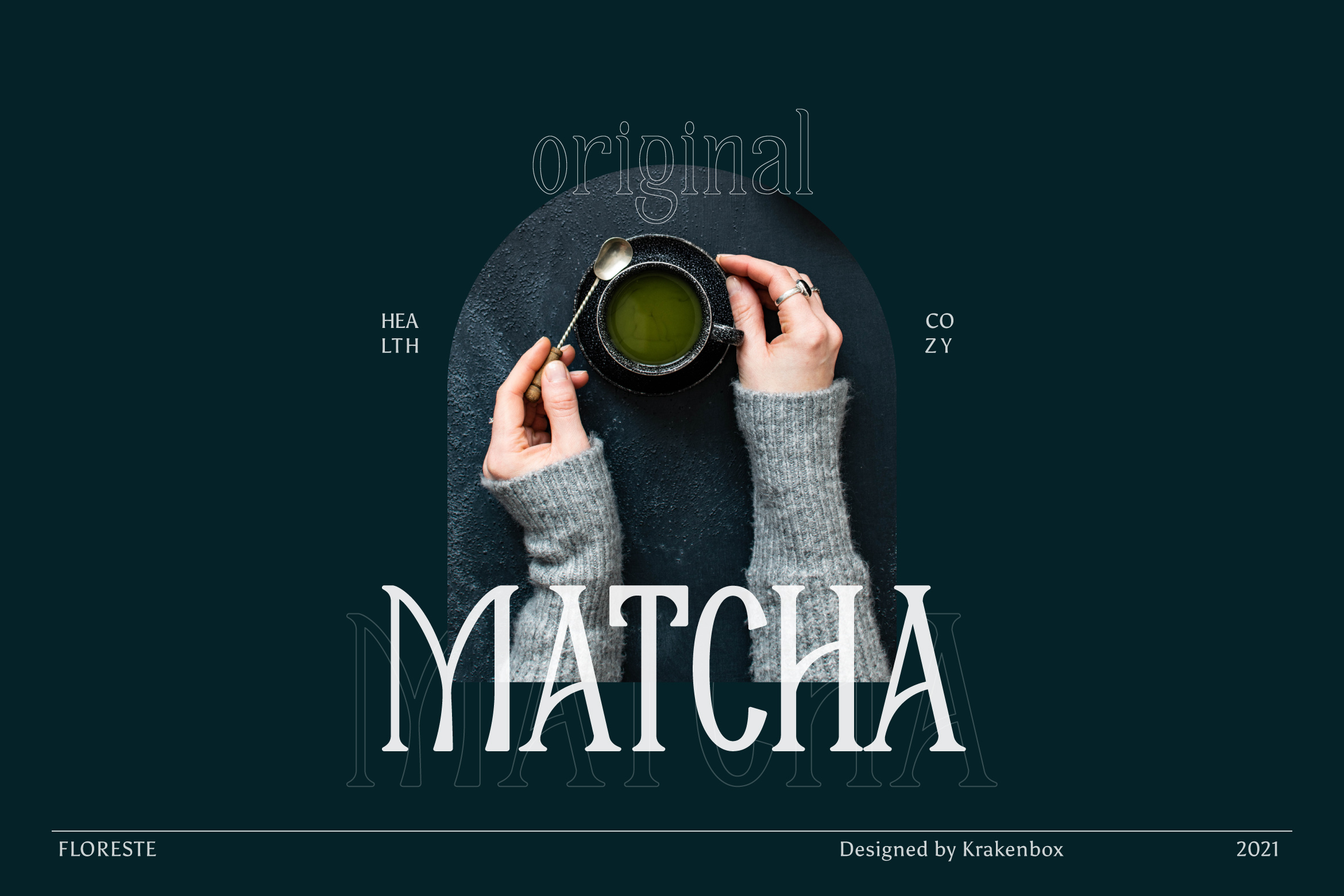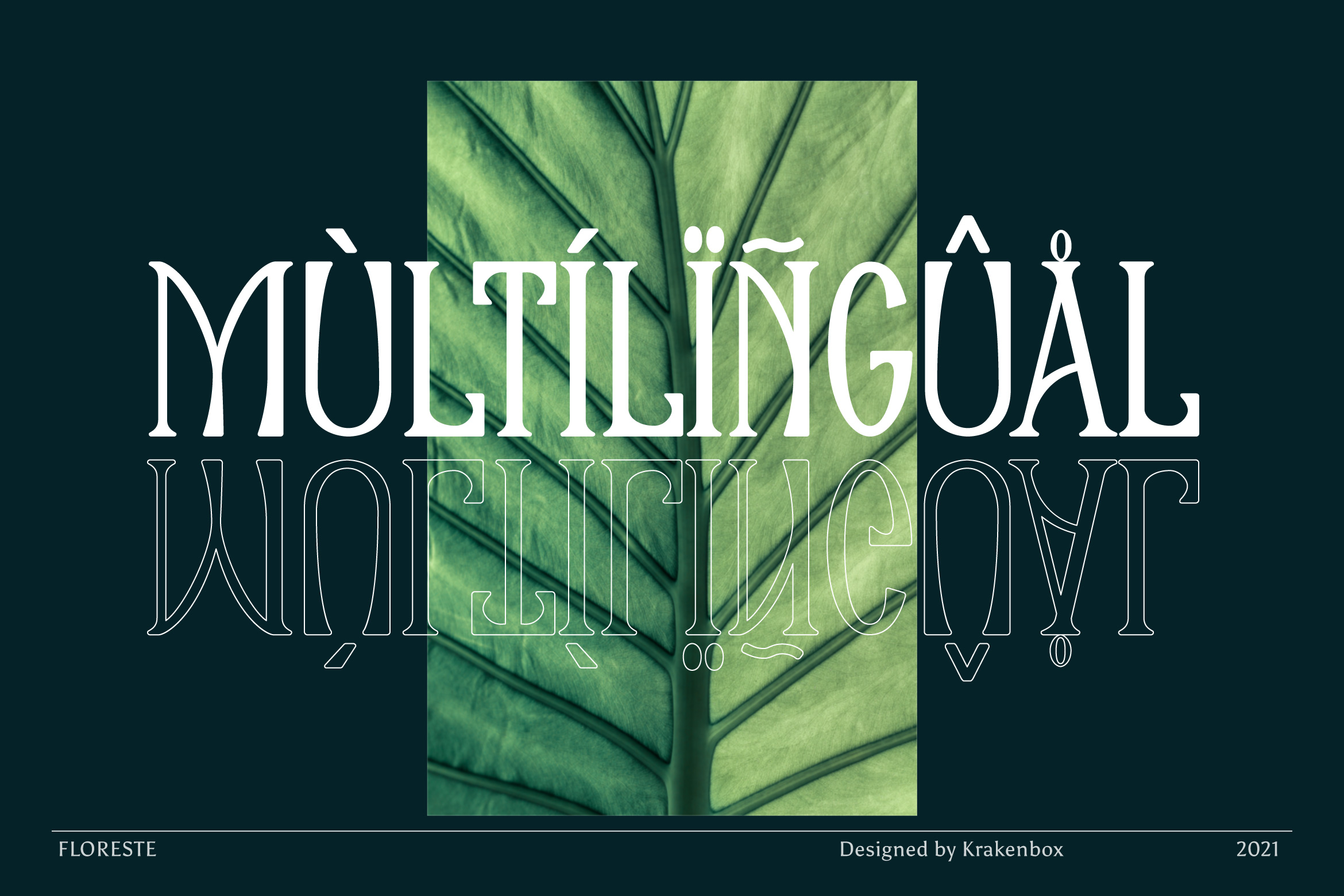
Floreste Serif Font
This is a tall and thin lettered serif font. It will look stunning on any poster, flyer or print. Use this font for your designs and explore its endless possibilities.